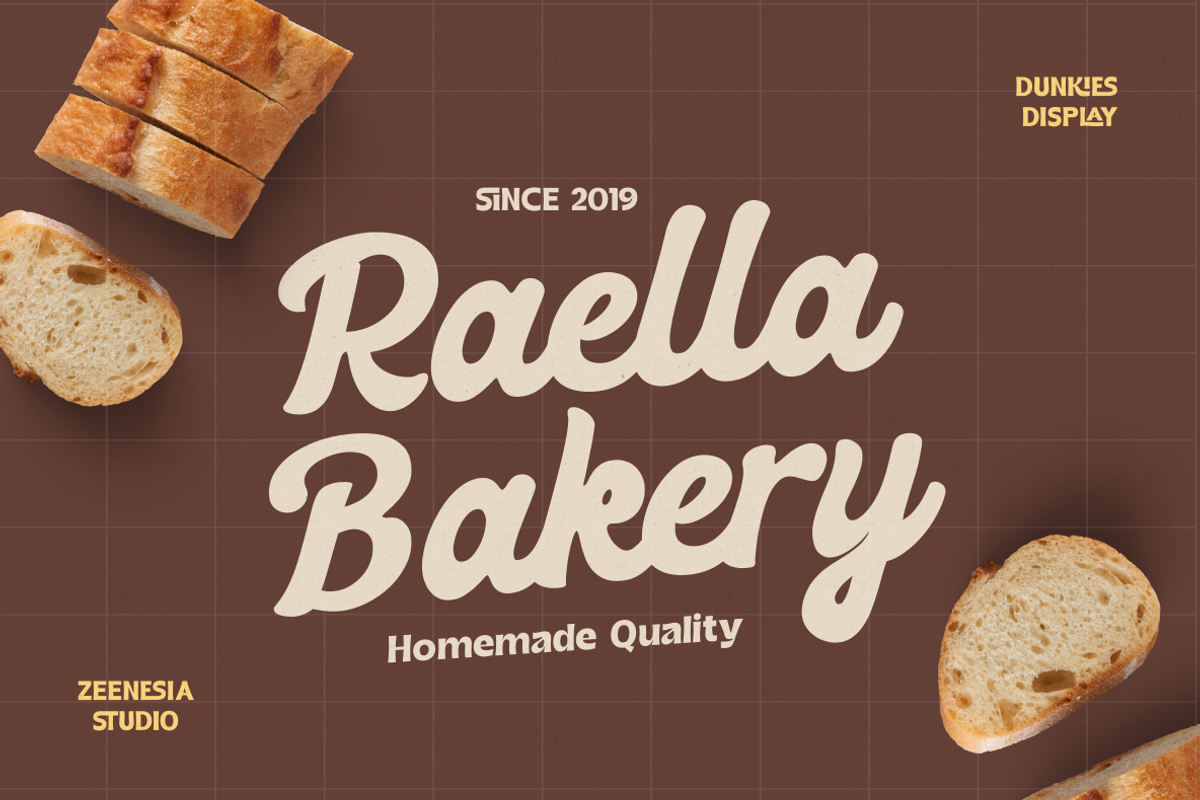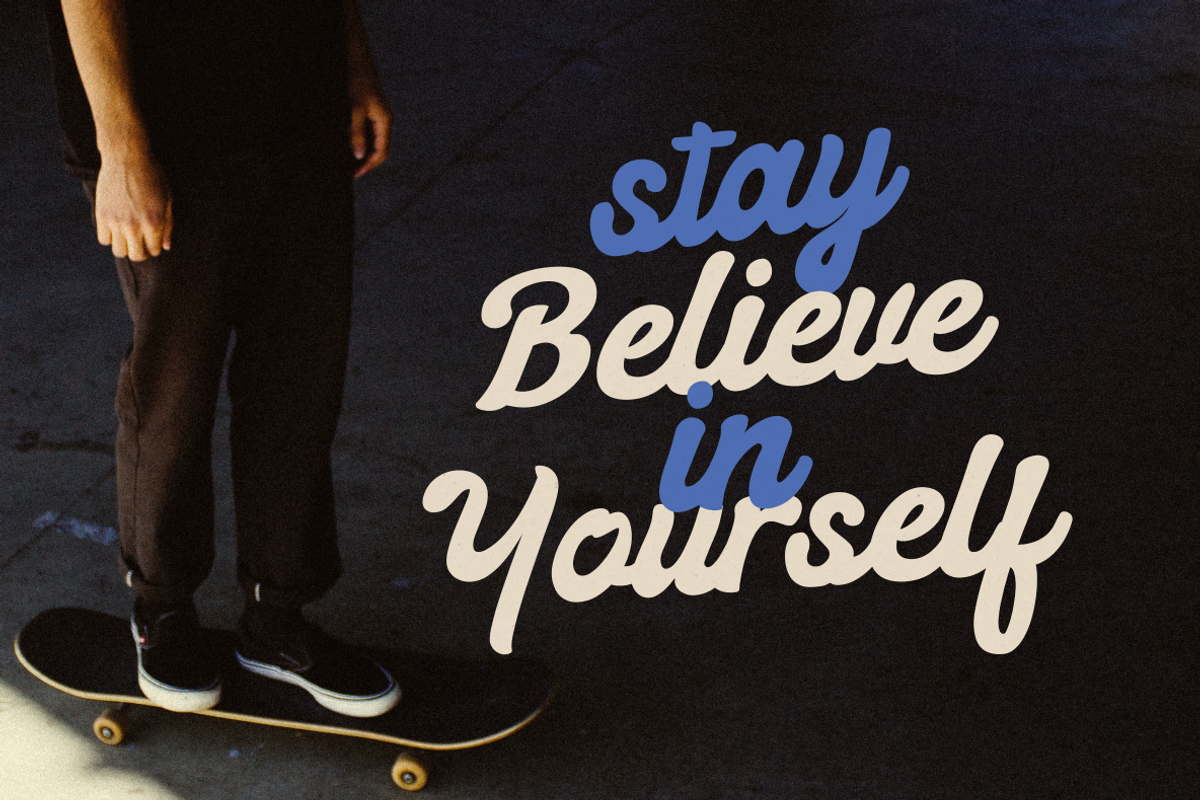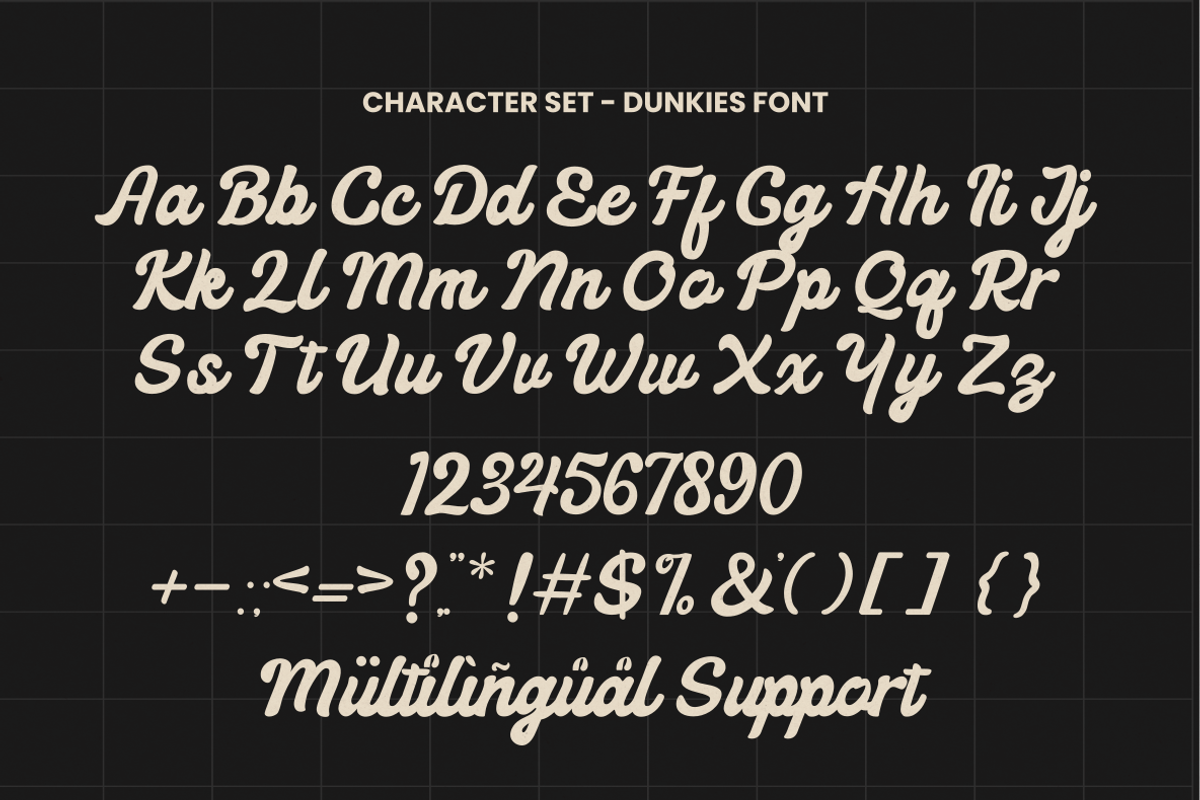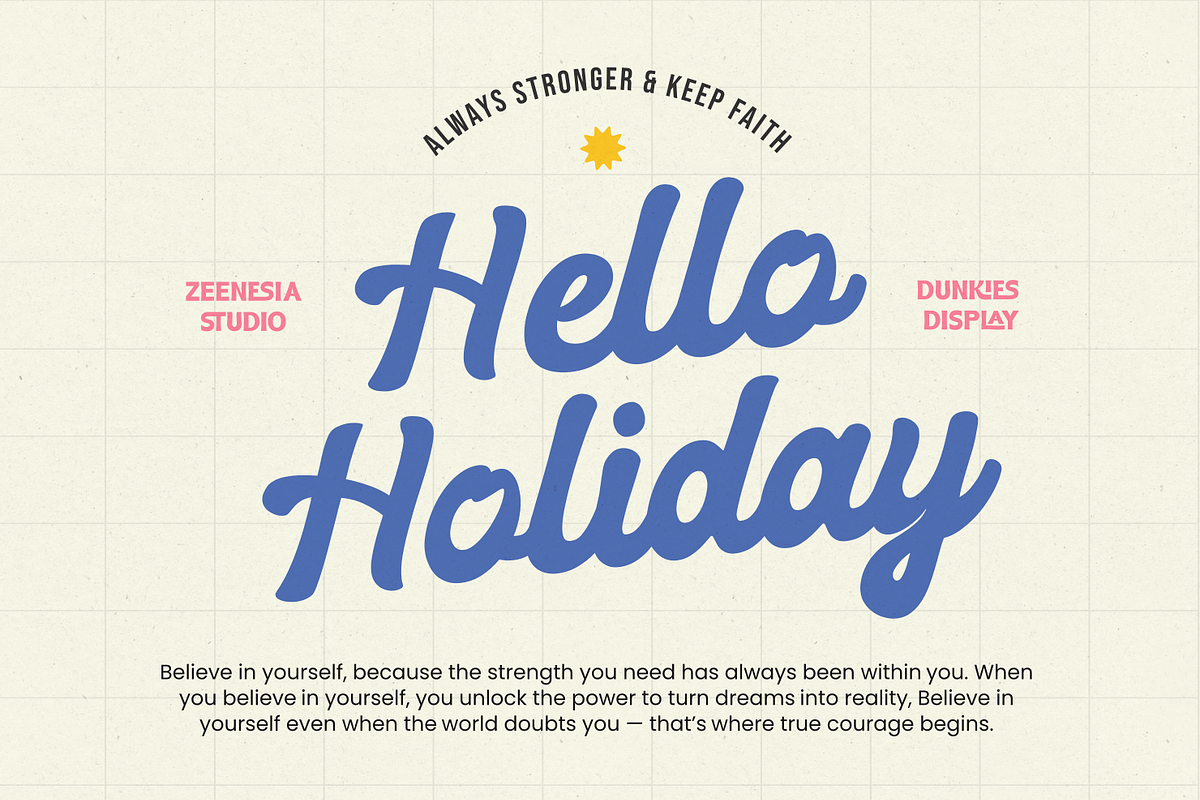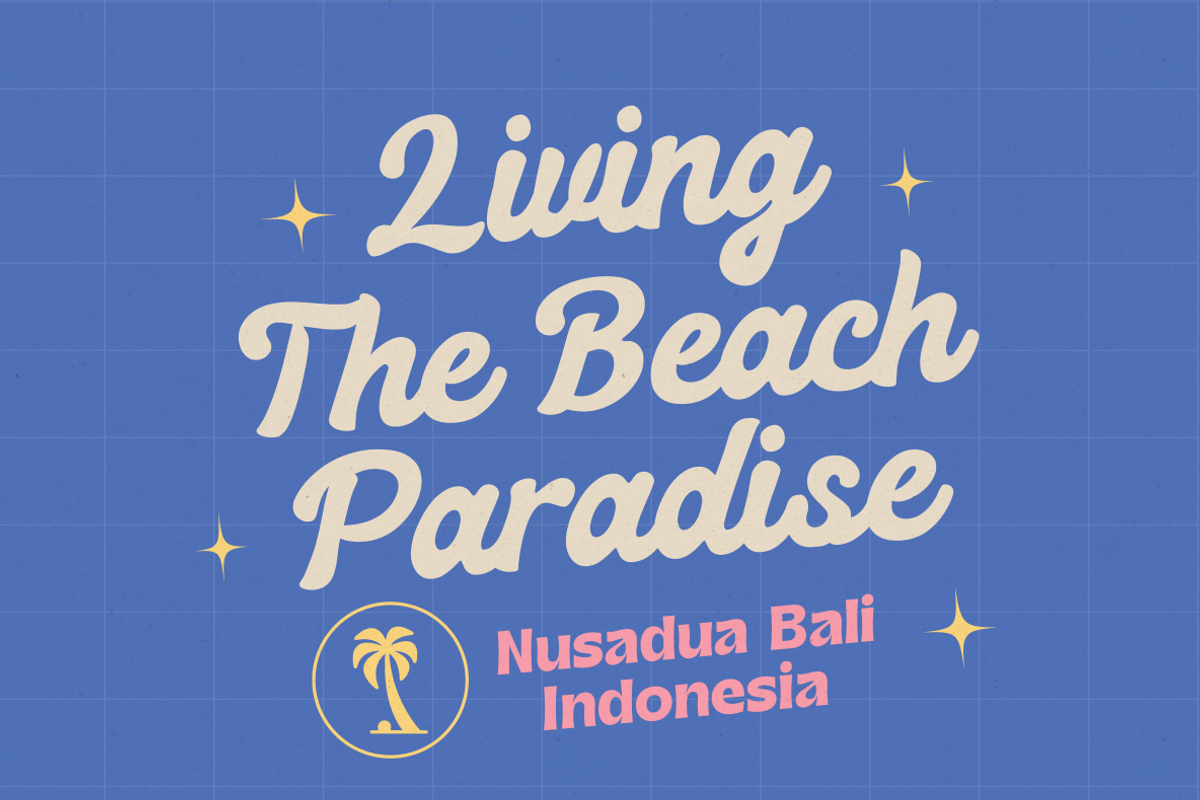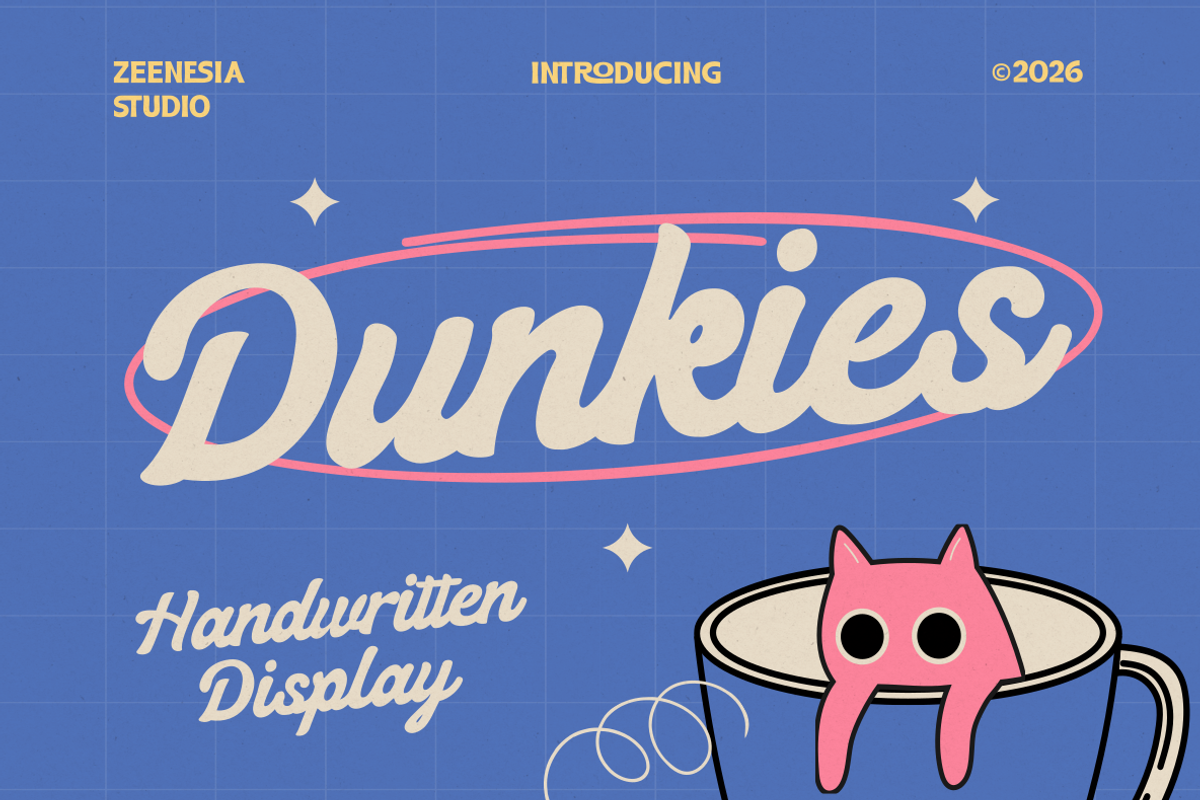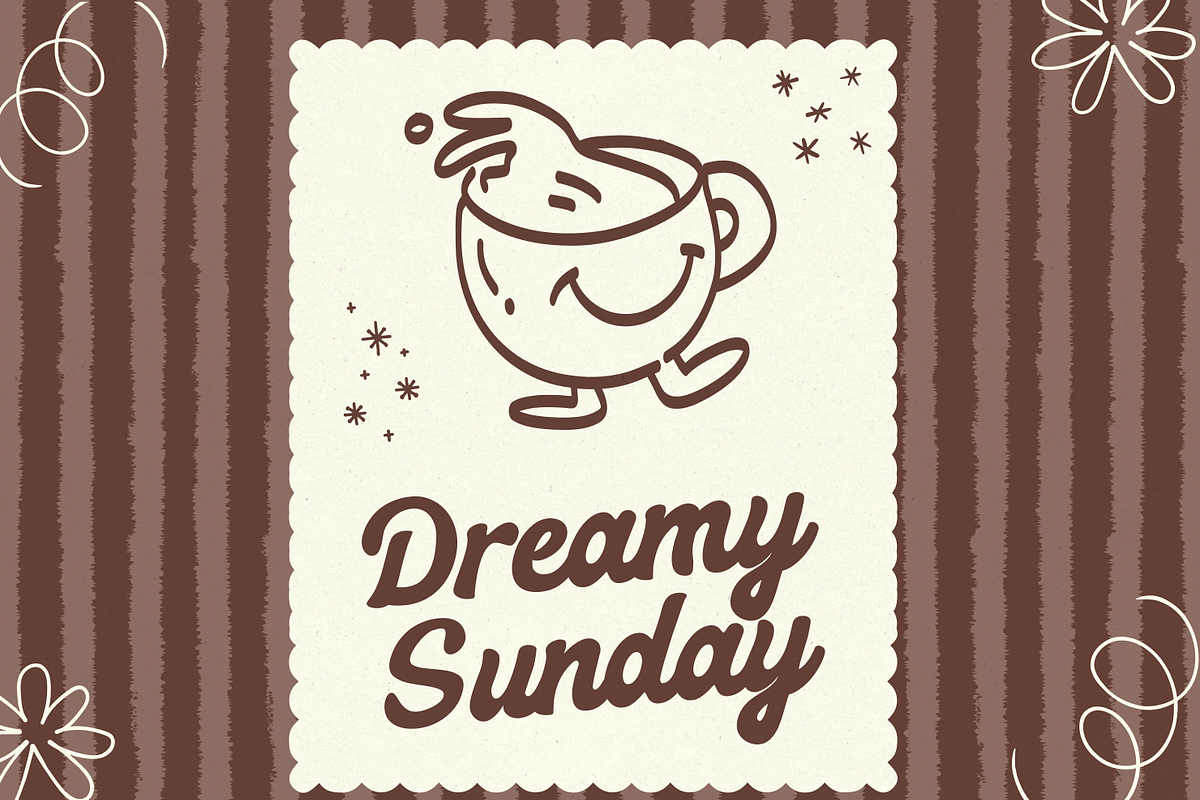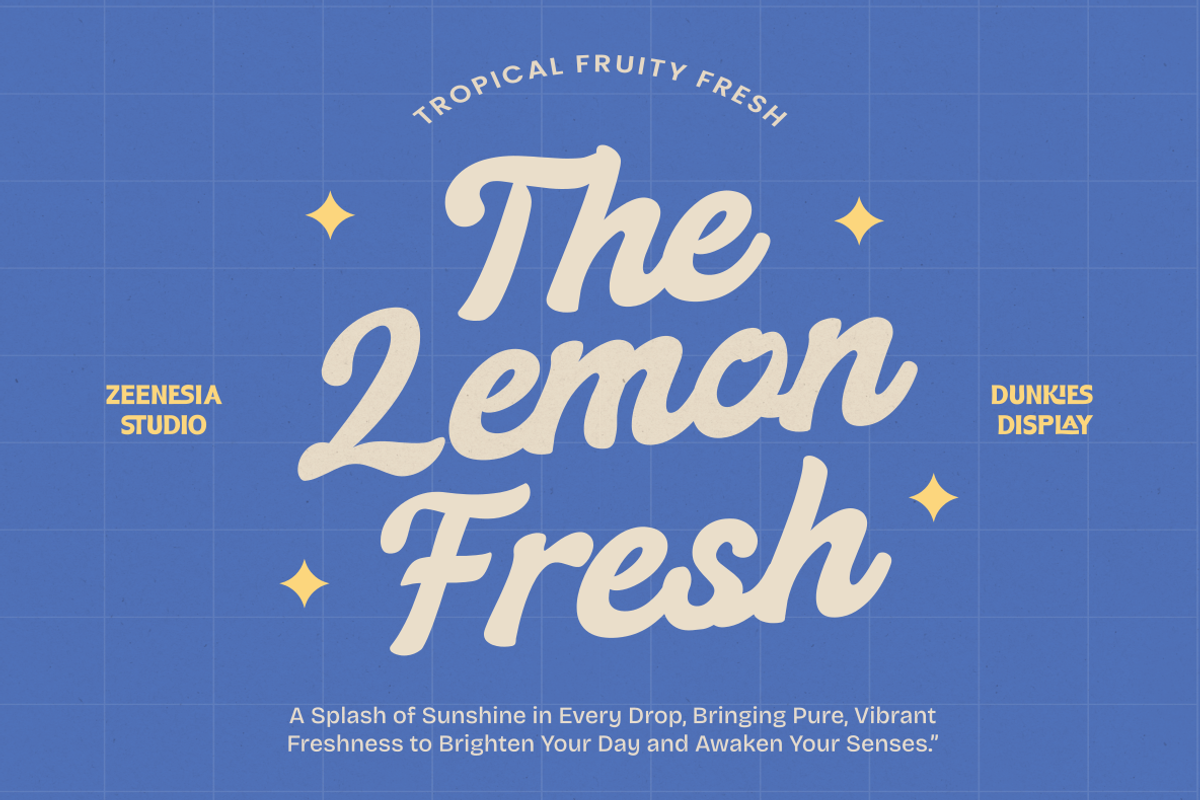
Dunkies
Dunkies is a charming handwritten display font that brings warmth, personality, and a touch of retro sweetness to your designs. With its smooth curves, bouncy letterforms, and natural flow, this typeface captures the feel of casual handwriting while maintaining a bold and eye-catching presence. Perfect for branding, packaging, posters, café menus, merchandise, and social media graphics, Dunkies adds a cozy yet playful character to any creative project. Let your designs feel more personal, expressive, and delightfully memorable with Dunkies.